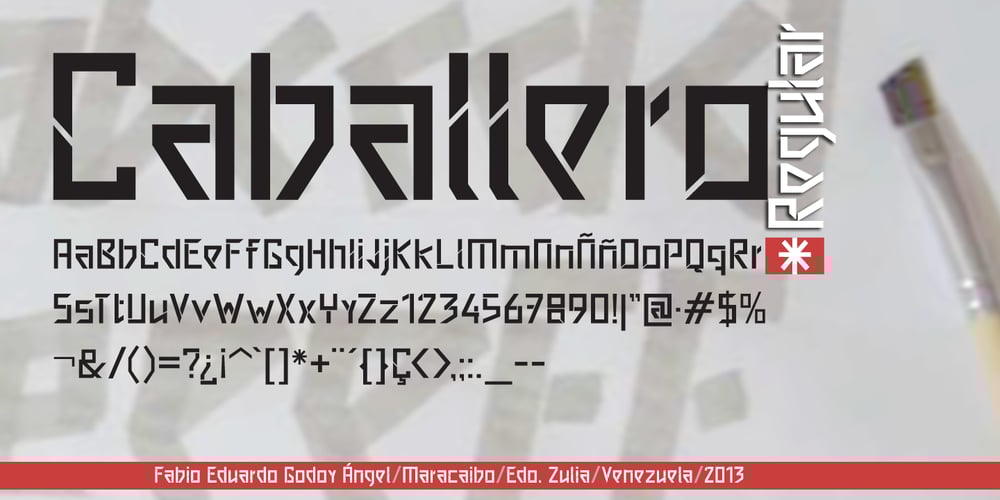
Caballero Font Family was designed by Fabio Eduardo Godoy and published by Fabio Godoy. Caballero contains 4 styles and family package options. Typographical Caballero is a family created by Fabio Eduardo Godoy Angel, the concept is inspired by a type with firm and clear, with perfect posture and personality to be used by Graphic Designers and Architects, in terms of print, TV Corporate Identity, Merchandising – Other Projects. Ideal for antetétulos, titles, subtitles, texts from 12 Pts. Caballero Outline and Caballero Outline Italic, are presented as an option for antetétulos, titles and subtitles as well as short texts from 20 Pts. Caballero in his presentation Outline, allows wide range of applications in regard to the use of color, and be combined with Caballero Regular and Caballero Italic. Font Project Caballero, is set with a vertical and horizontal logic calligraphic lines, amount of contrast medium, antlers mullet and its completions are straight.